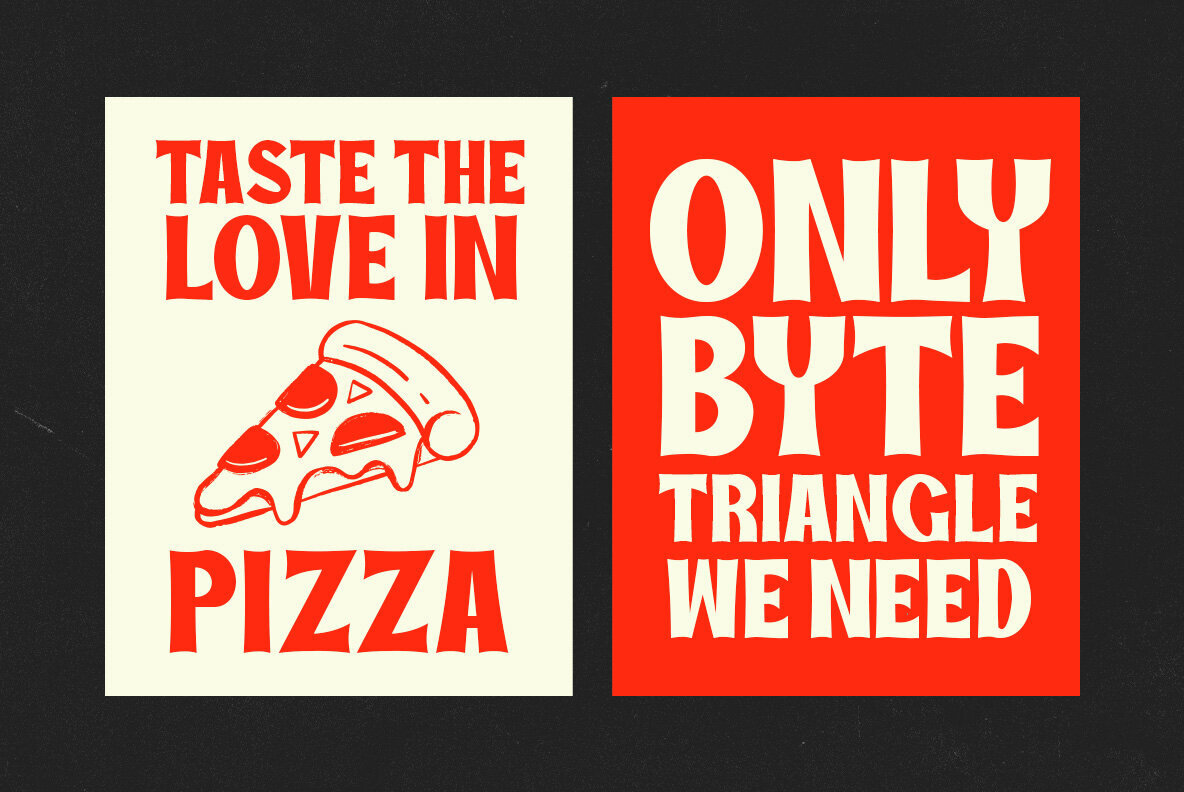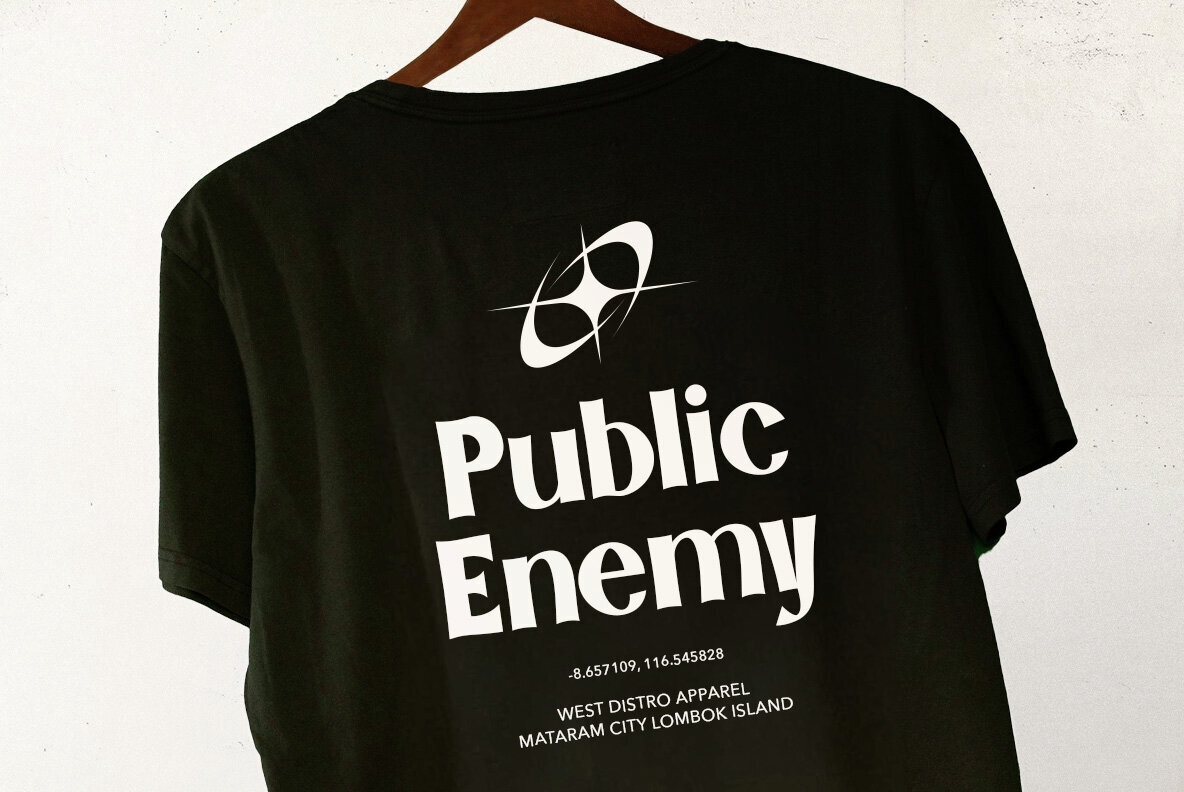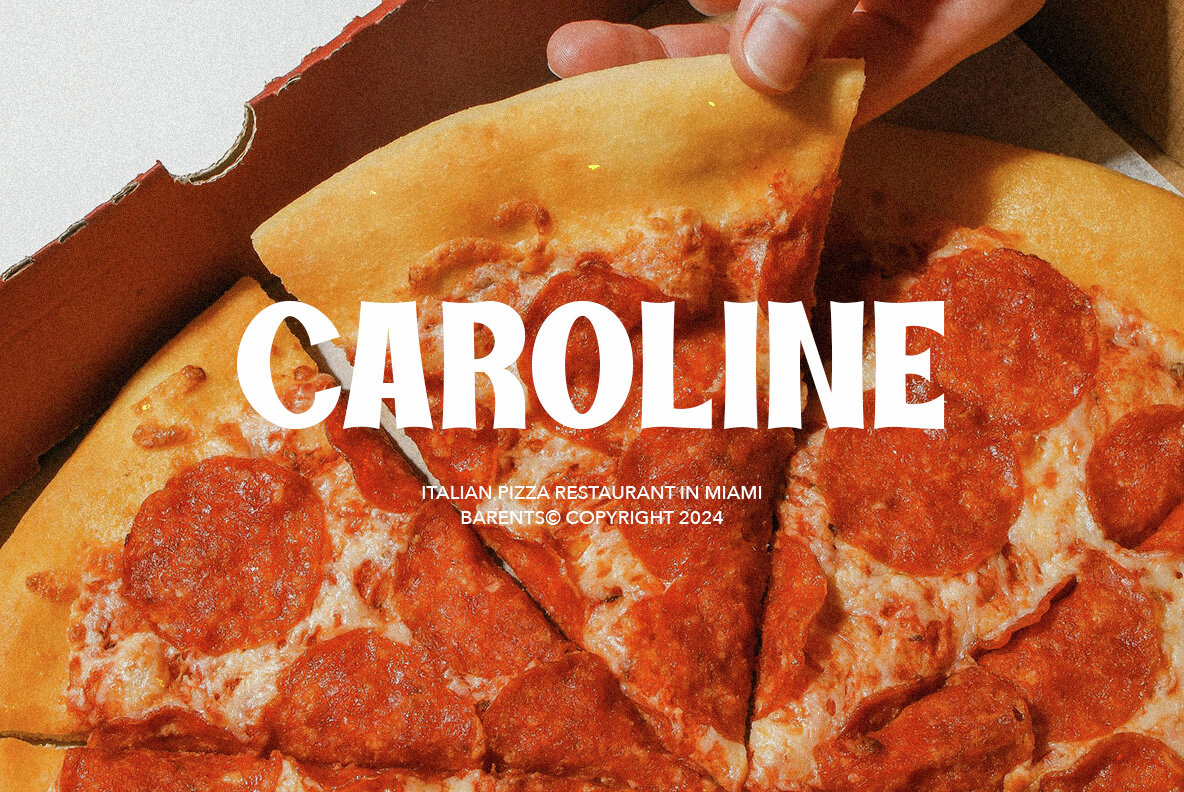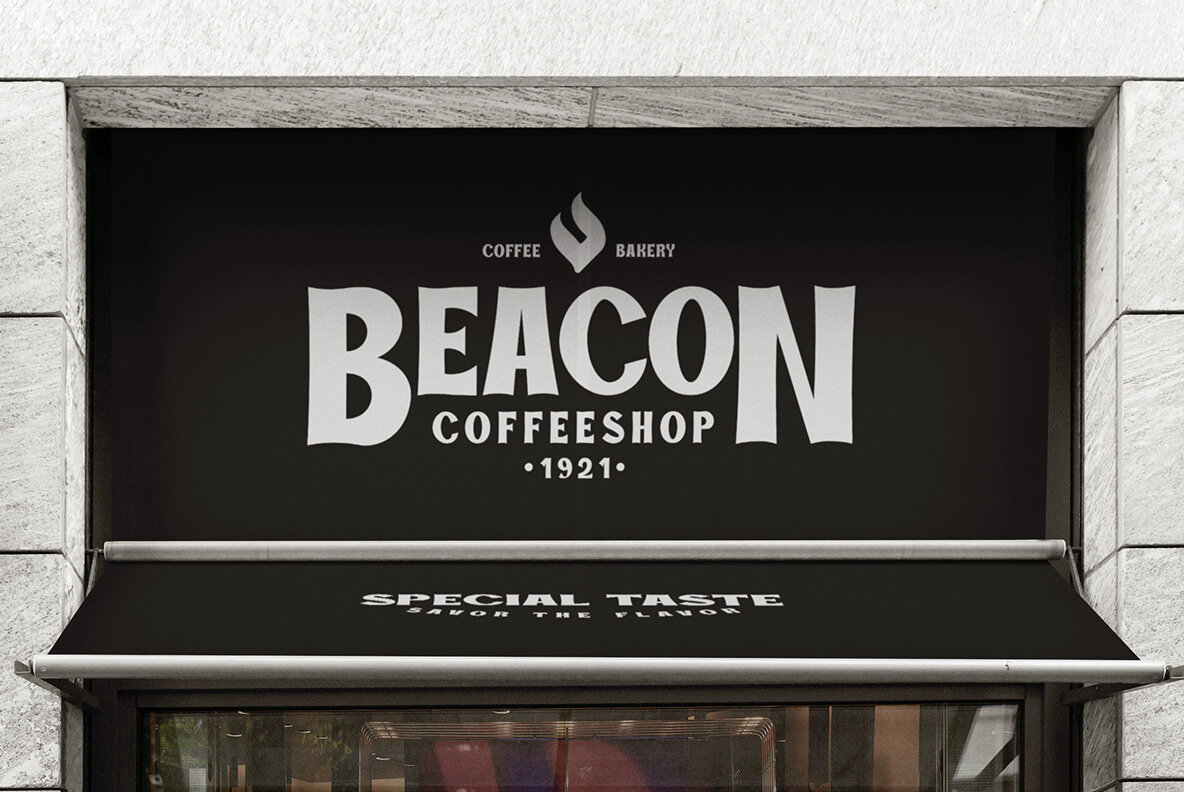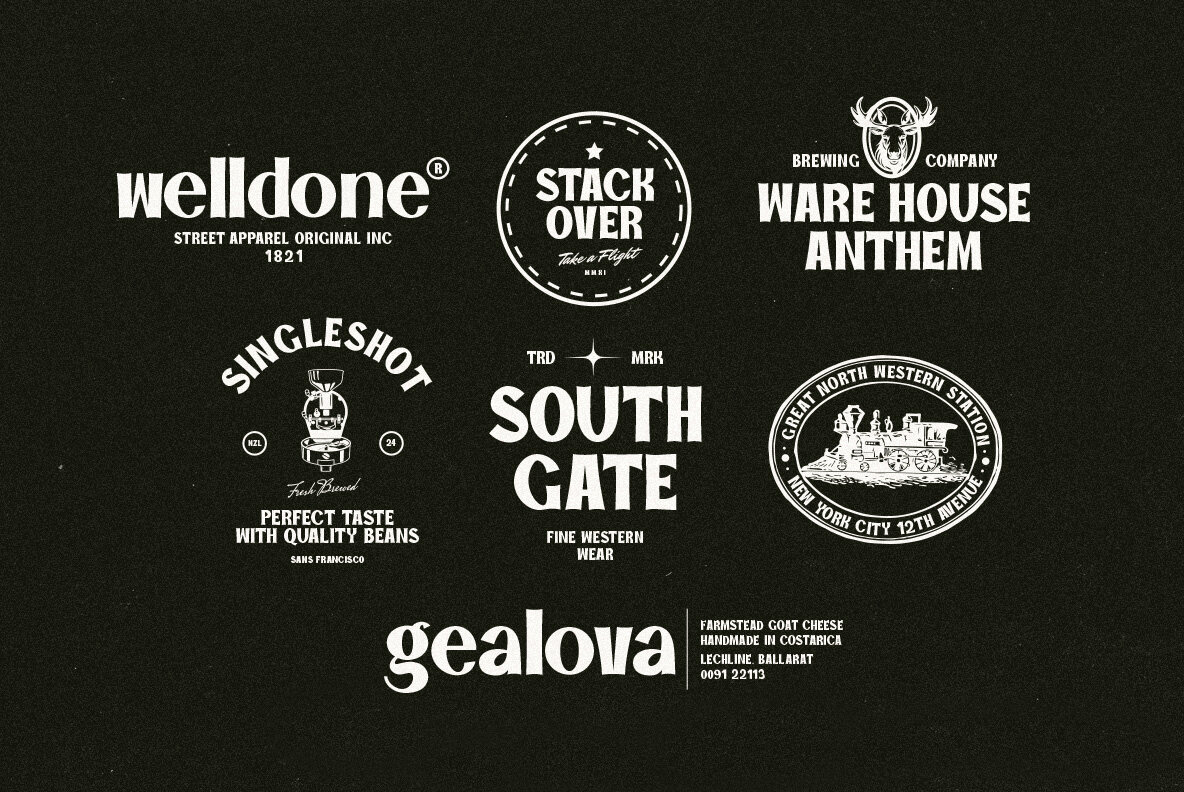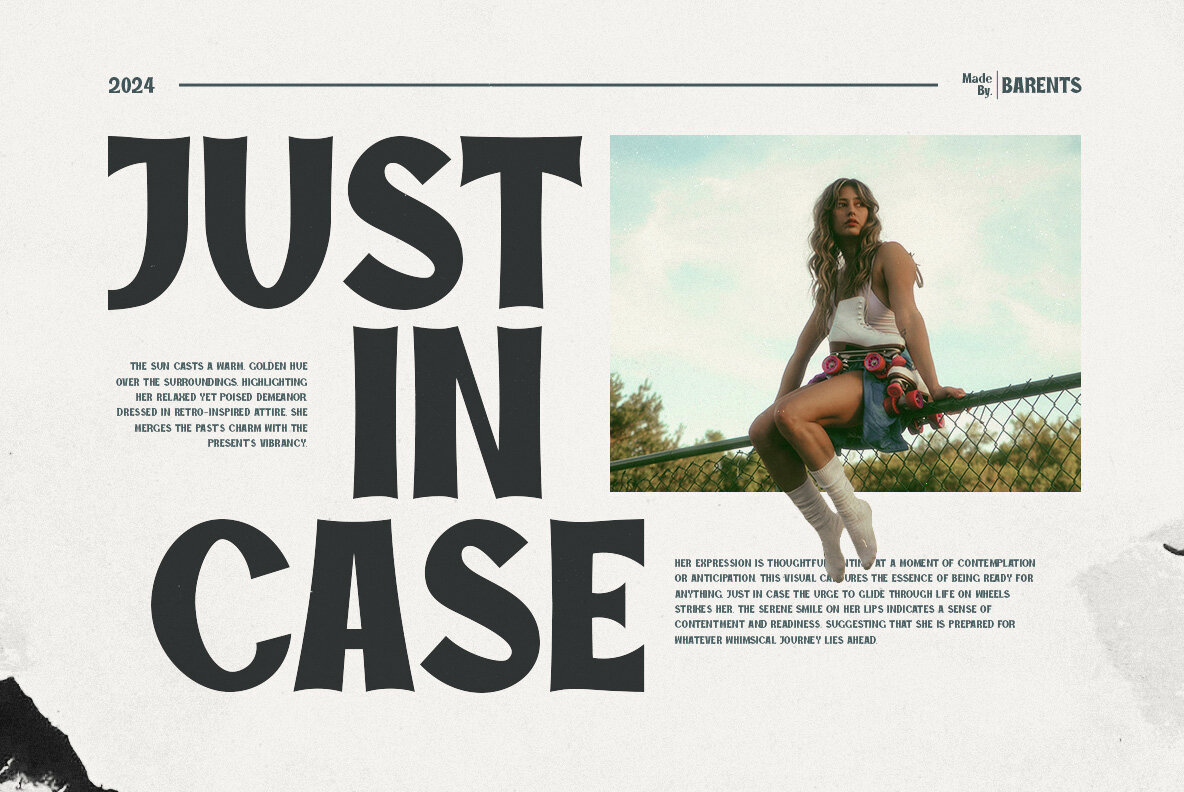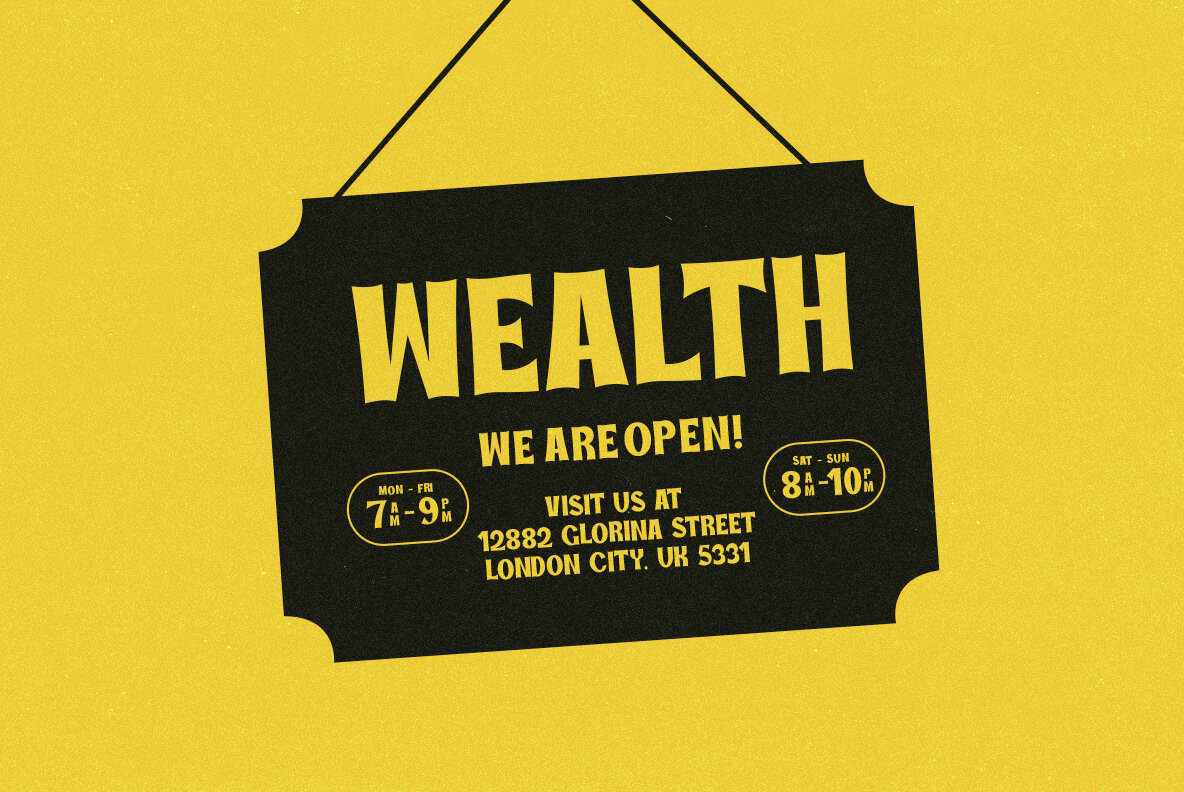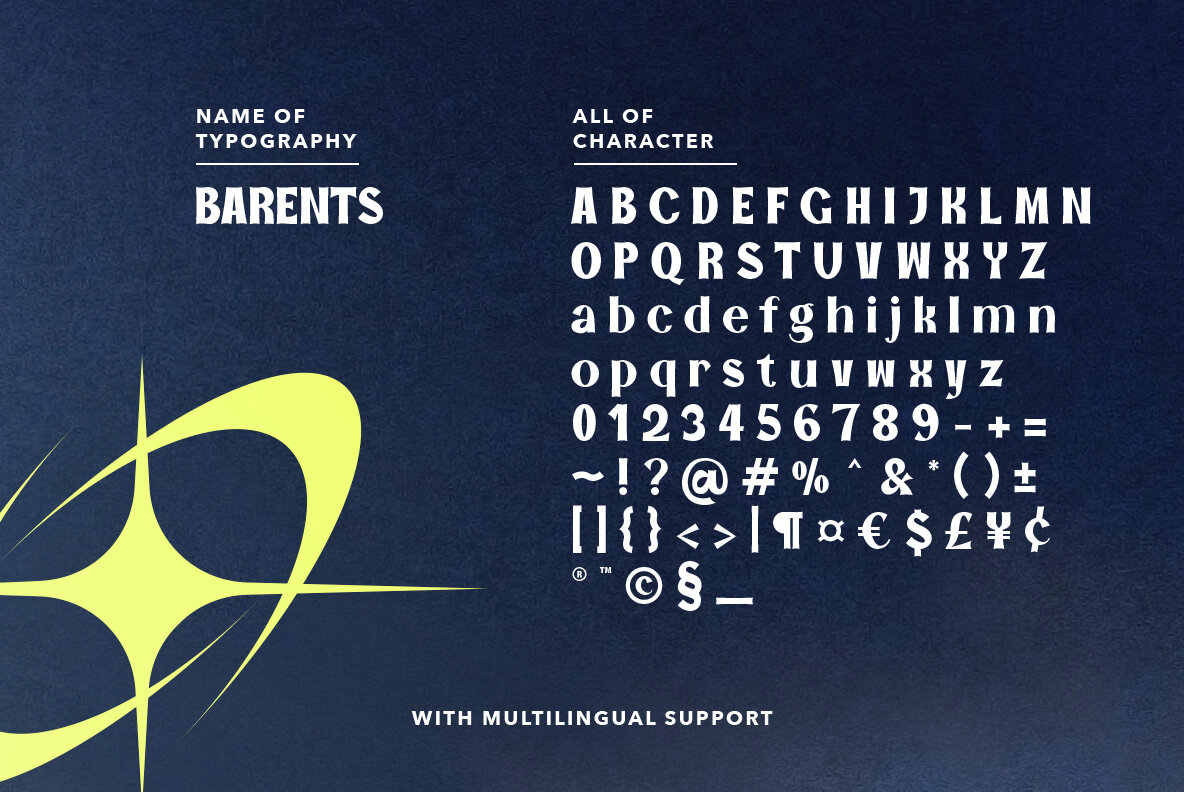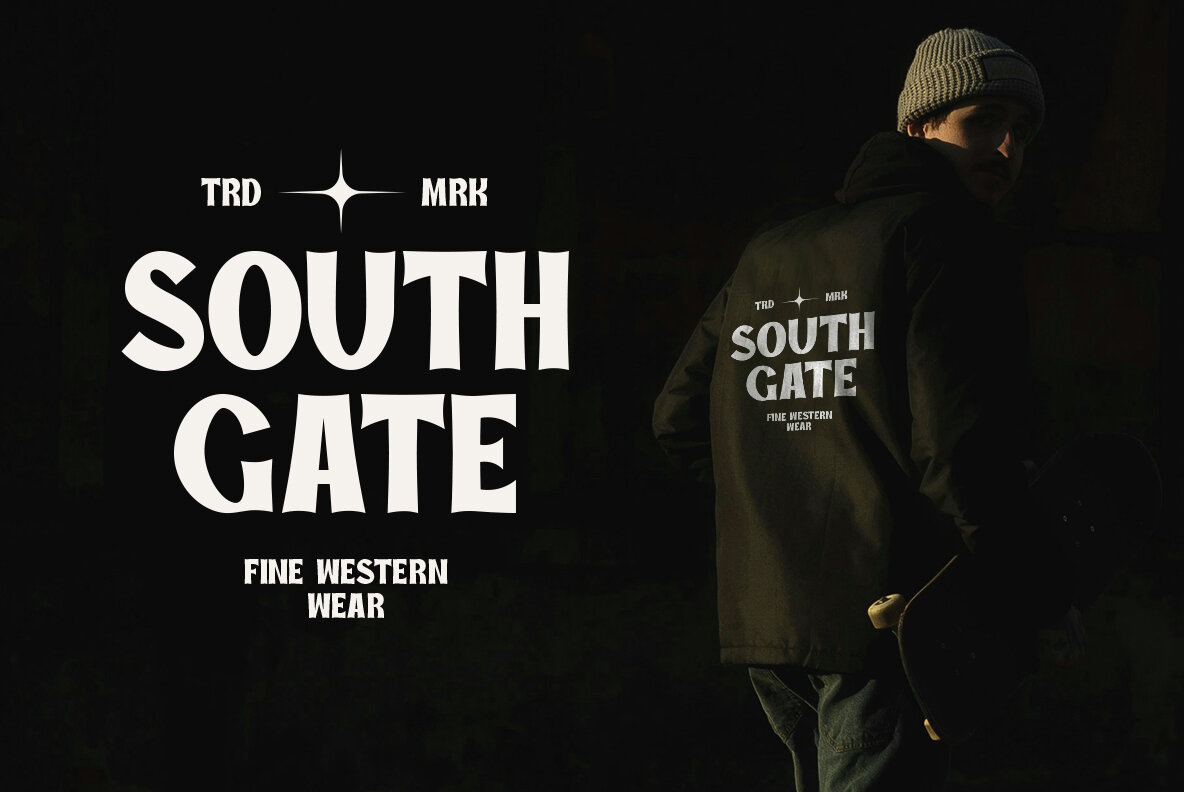
Barents Font
Barents Regular
Barents - Bold Sans is a striking and robust font, perfect for dynamic branding projects and apparel designs that embody streetwear or old money aesthetics. Its bold character lends itself well to high-impact visuals, making it an ideal choice for graphic designers aiming to create attention-grabbing and memorable pieces. This unique font is also exceptionally suited for print materials, including posters, magazines, and marketing flyers, where its strong presence can effectively communicate powerful messages.
With Barents - Bold Sans, your design projects can achieve a compelling visual identity that stands out. Its clean lines and assertive style make it versatile for a wide range of applications, from corporate branding to creative artworks. The font's boldness not only enhances readability but also imparts a distinctive personality to your designs, ensuring they do not go unnoticed.